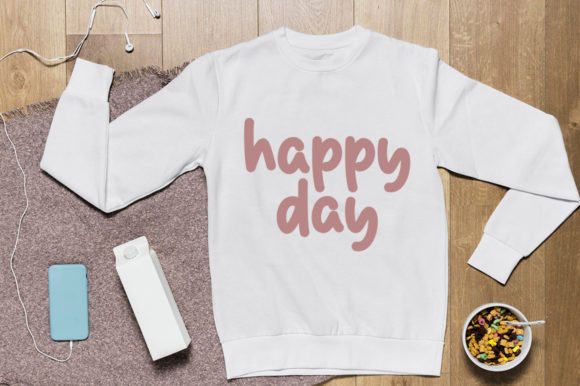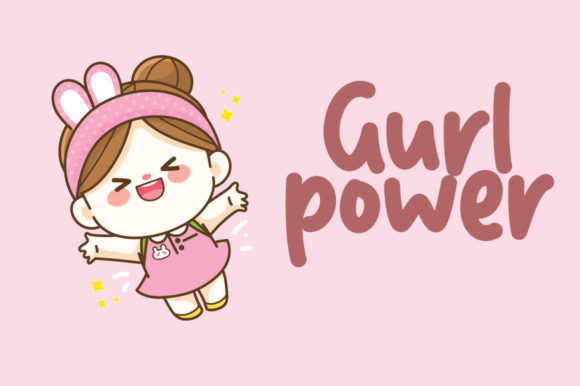
Cute Love Font
db-ku.com - Script & Handwritten -- Cute Love is a lovely and simple-lettered handwritten font, perfect for all the chalkboard quotes and teaching materials you wish to create! Its authentic look will add a personal and realistic feel to your designs.